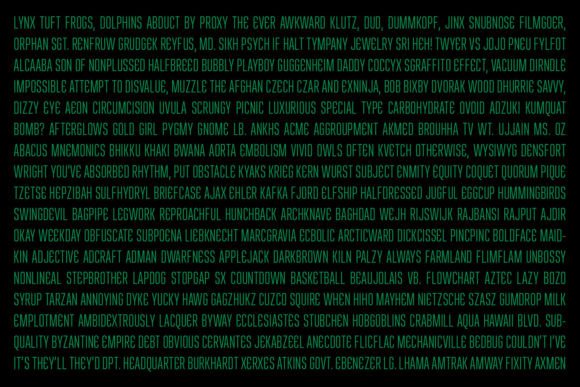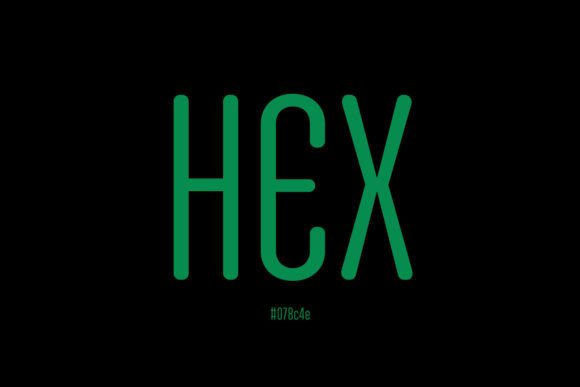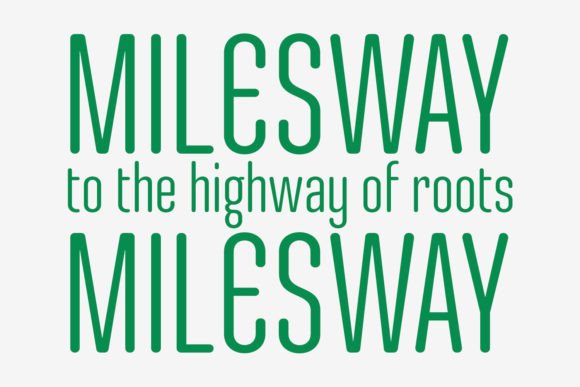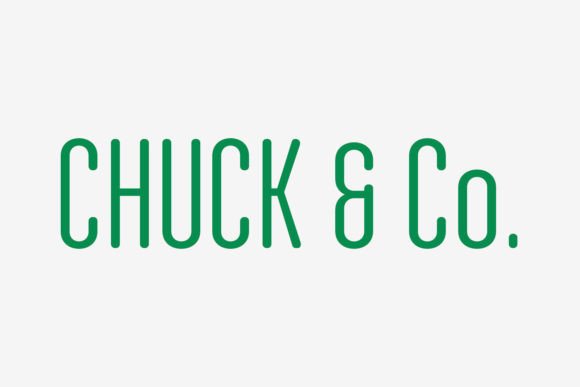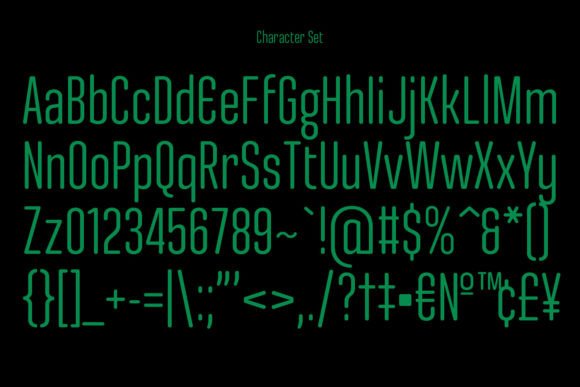
Introducing Ertige Font: The Ultimate Modern Sans-Serif for Sleek Designs
In the world of typography, a font can make or break a design. For designers and crafters looking for a modern and sophisticated look, Ertige Font is the perfect solution. This condensed and modern sans-serif font is designed to provide a sleek and compact aesthetic, ideal for branding, editorial design, and any project that requires a bold statement.
What Makes Ertige Font Stand Out?
Ertige Font boasts clean lines and compact spacing, making it perfect for designs where space is limited. Its modern sans-serif style gives it a fresh and contemporary look, allowing it to stand out in a crowded design landscape. Whether you’re working on a logo, brochure, or website, Ertige Font is sure to make a lasting impression.
Key Features of Ertige Font
- Condensed and Modern Design: Ertige Font’s sleek and compact design makes it perfect for projects where space is limited.
- Clean Lines and Compact Spacing: The font’s clean lines and compact spacing create a sophisticated and modern look.
- PUA Encoded: Ertige Font is PUA encoded, making it easy to access all delightful glyphs and swashes.
- Perfect for Branding and Editorial Design: Ertige Font is ideal for branding, editorial design, and any project that requires a modern touch.
Benefits of Using Ertige Font
Using Ertige Font in your designs comes with a range of benefits. For starters, its modern and sleek aesthetic is sure to grab attention and make a lasting impression. Additionally, the font’s compact design makes it perfect for projects where space is limited. Ertige Font is also incredibly versatile, making it suitable for a wide range of design applications.
Tips for Getting the Most Out of Ertige Font
- Experiment with Different Sizes: Ertige Font looks great in a range of sizes, from small captions to large headlines.
- Play with Glyphs and Swashes: Ertige Font’s PUA encoding makes it easy to access all the font’s glyphs and swashes. Experiment with different combinations to add personality to your designs.
- Pair with Other Fonts: Ertige Font pairs well with a range of other fonts. Experiment with different pairings to create a unique look.
Ertige Font is a powerful and versatile font that’s perfect for designers and crafters looking for a modern and sophisticated look. With its clean lines, compact spacing, and PUA encoding, Ertige Font is ideal for branding, editorial design, and any project that requires a bold statement. Whether you’re a seasoned designer or just starting out, Ertige Font is a great addition to your font library.